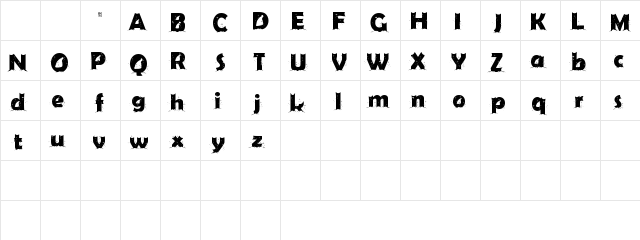
First Christmas Regular
| Foundry | LJDS & JP Designs |
| Designer | Designer Jorger Perez Welded Luis Jaramillo |
Design Context for First Christmas Typeface
First Christmas is a composed and adaptable typeface that performs quietly and consistently across a wide range of design contexts.